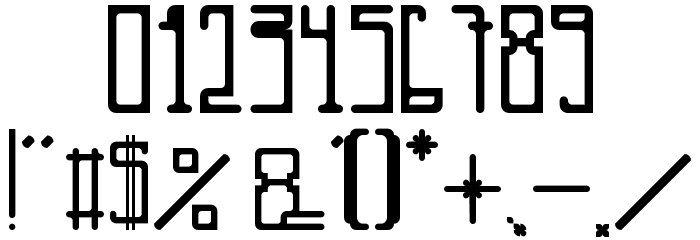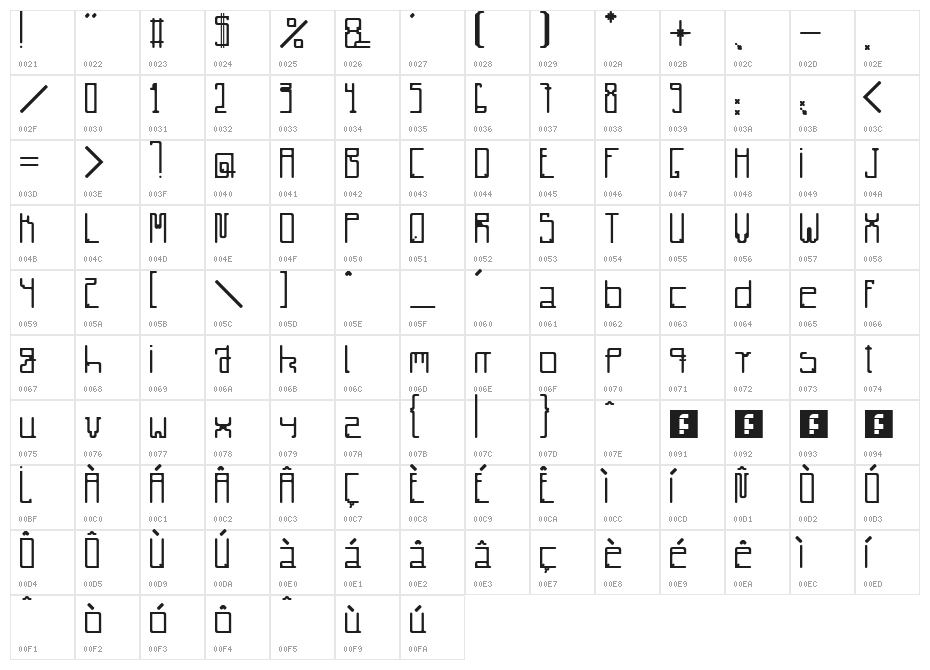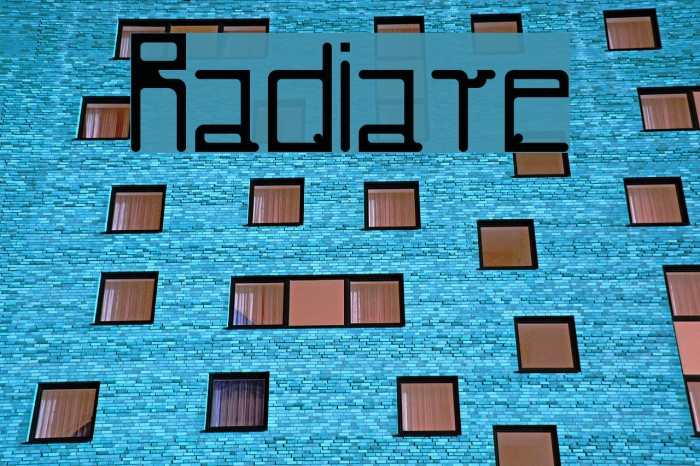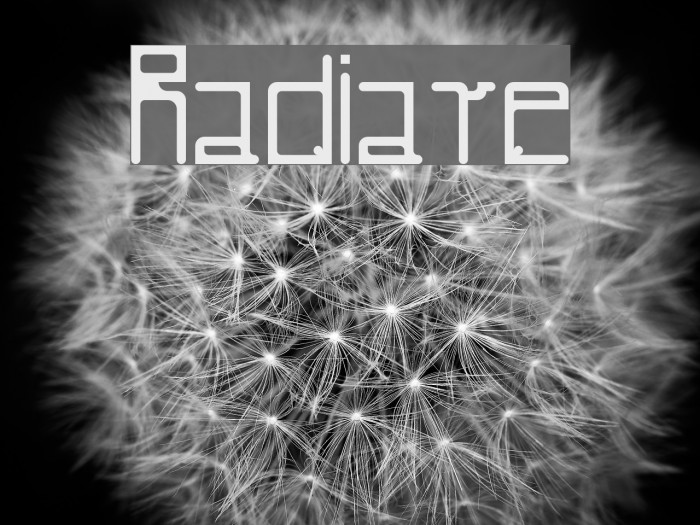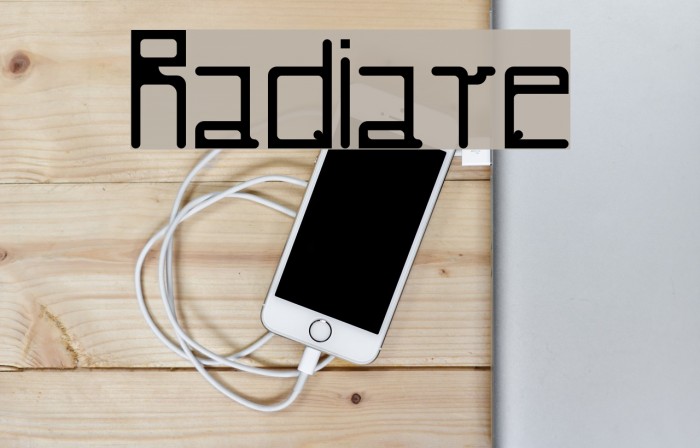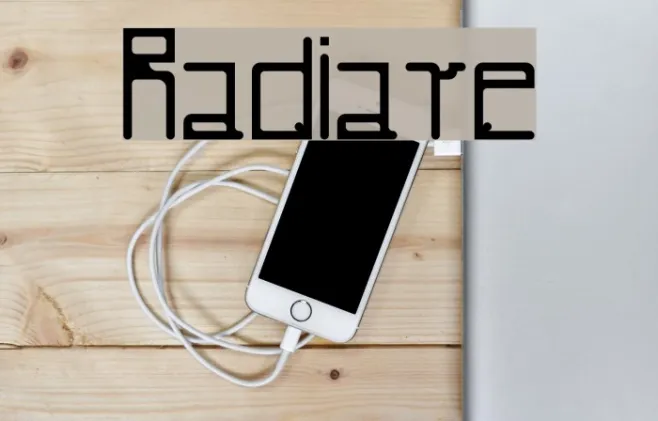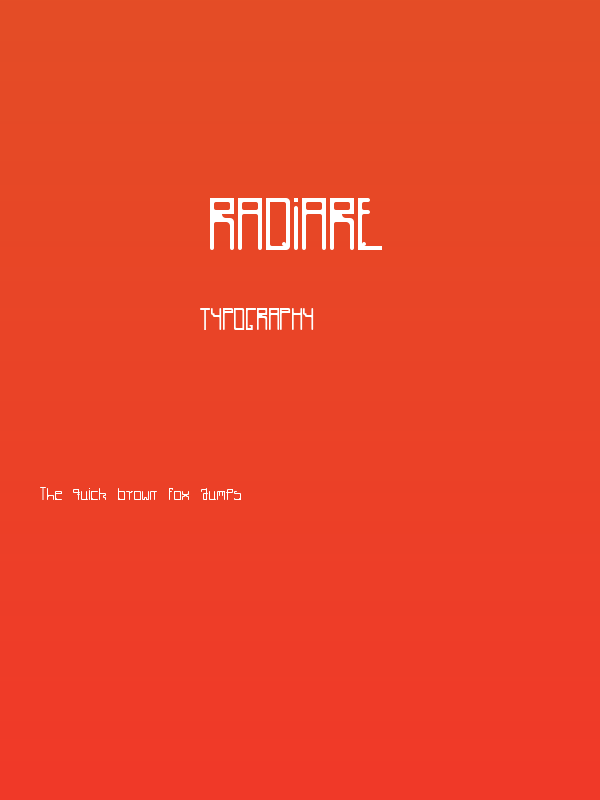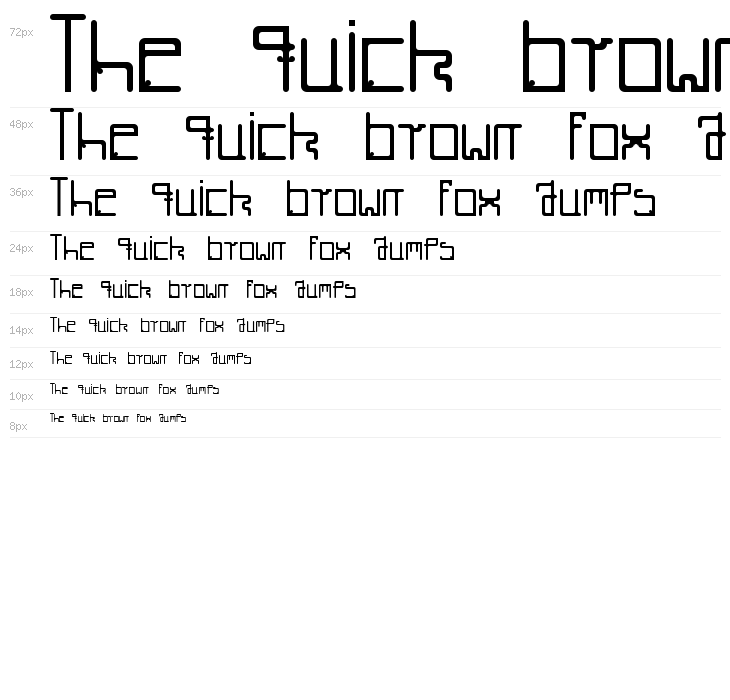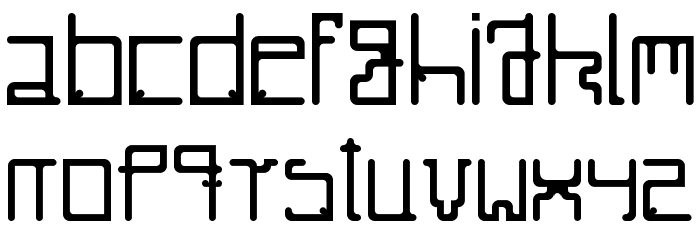
Radiare Font
Radiare Description
This font features a unique, futuristic design with a geometric and modular structure. The characters are composed of straight lines and sharp angles, giving it a mechanical and digital appearance. The uppercase and lowercase letters maintain a consistent height, contributing to a uniform look. The numerals and special characters follow the same design principles, ensuring cohesion throughout the typeface. The font's distinctive style makes it stand out, with each character having a bold presence due to its thick strokes and minimal curves. The spacing between characters is tight, enhancing its compact and efficient look.
| Proposed Projects | Ideal for technology branding, sci-fi posters, video game interfaces, and digital art projects. |